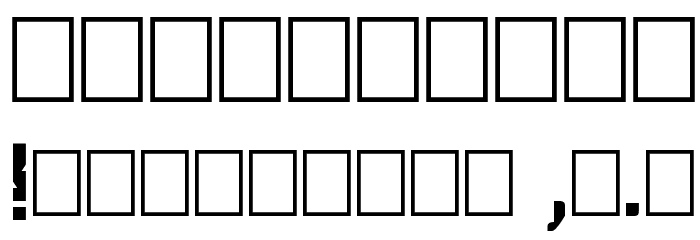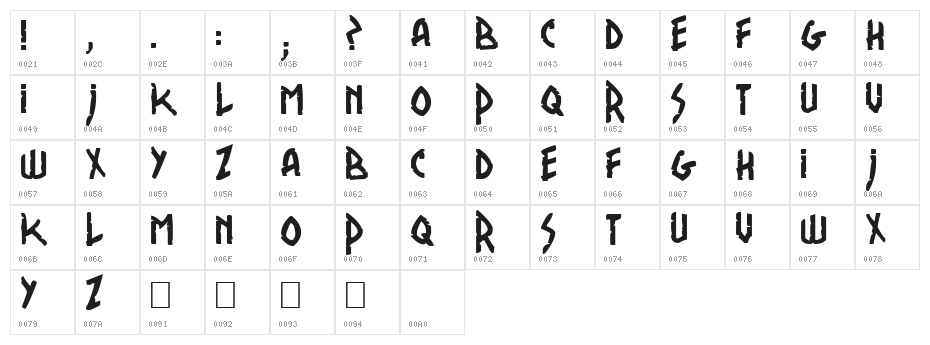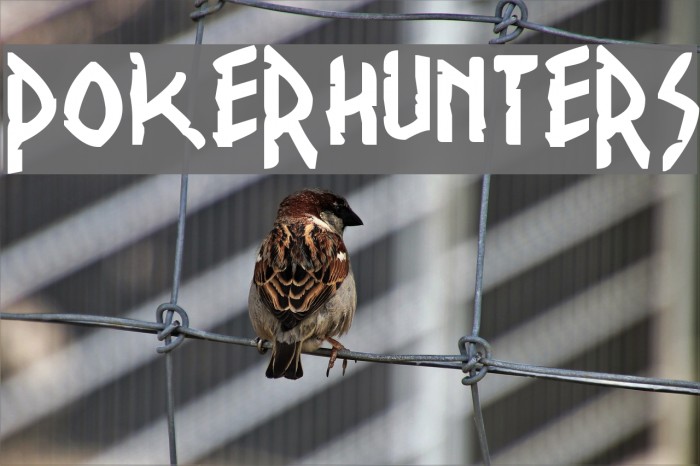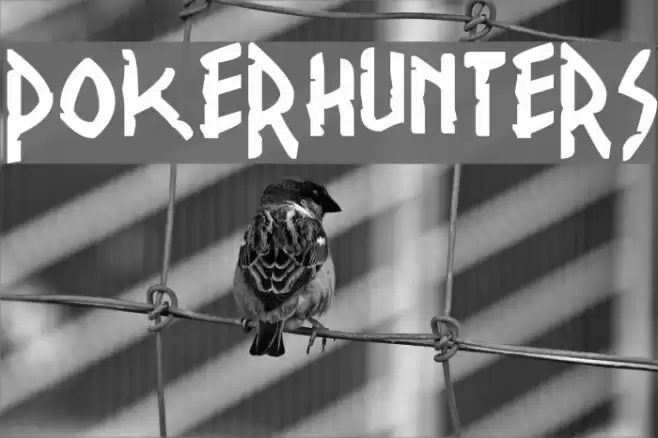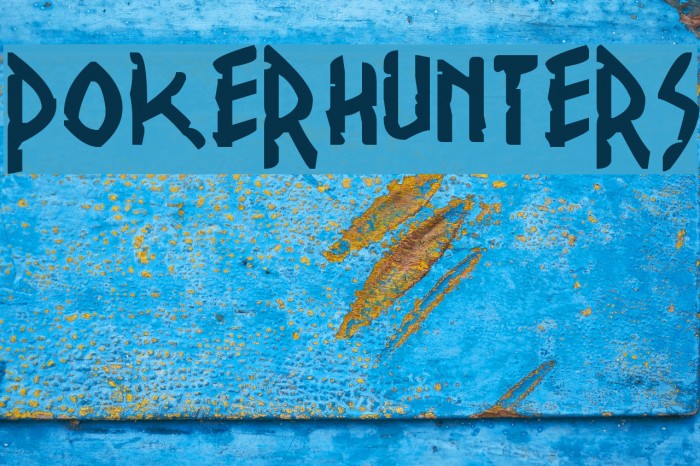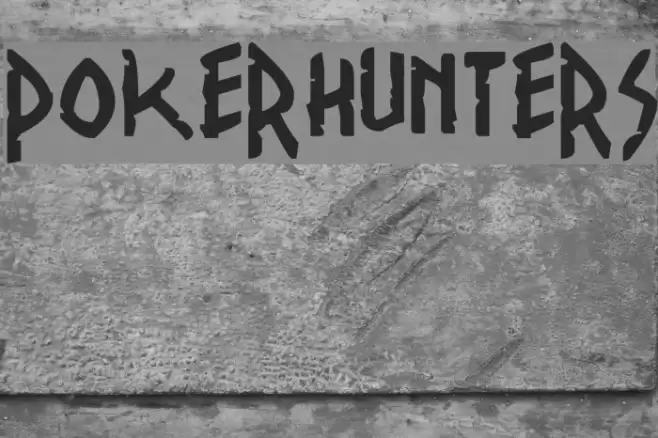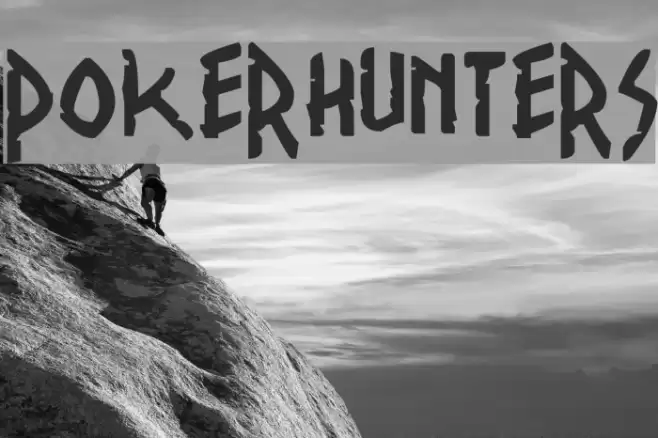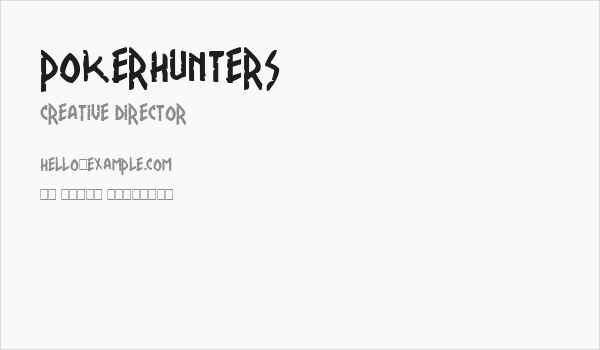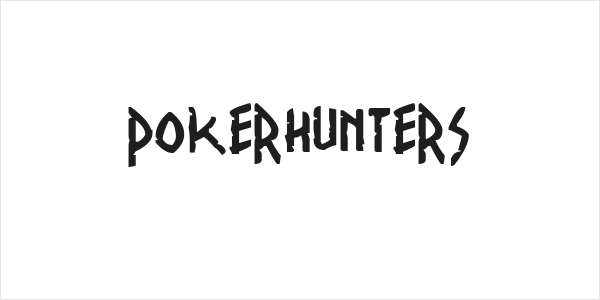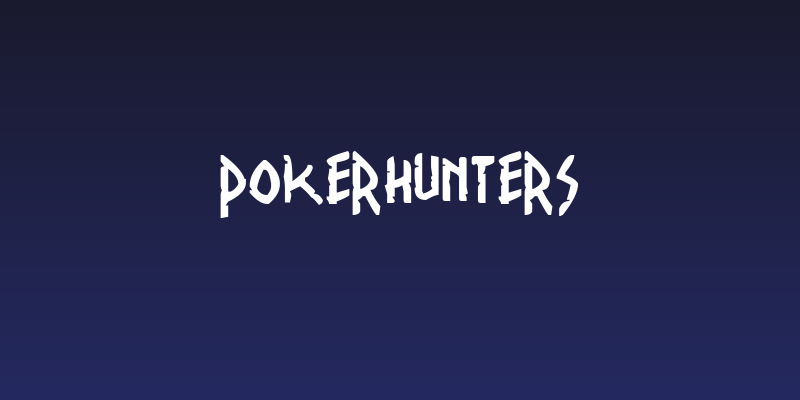
PokerHunters Font
PokerHunters Description
This font features a bold and dynamic style with a playful, hand-drawn appearance. The characters are slightly irregular, giving them a lively and energetic feel. The strokes are thick and uneven, adding a sense of movement and spontaneity. The uppercase and lowercase letters maintain a consistent style, with angular edges and a somewhat jagged look. The numbers and special characters follow the same aesthetic, ensuring a cohesive appearance across all glyphs. This font is ideal for projects that require a fun and informal touch, such as posters, invitations, or branding for creative industries.
| Overall Style | Playful, Energetic |
| Proposed Projects | Ideal for posters, creative branding, and informal invitations. |